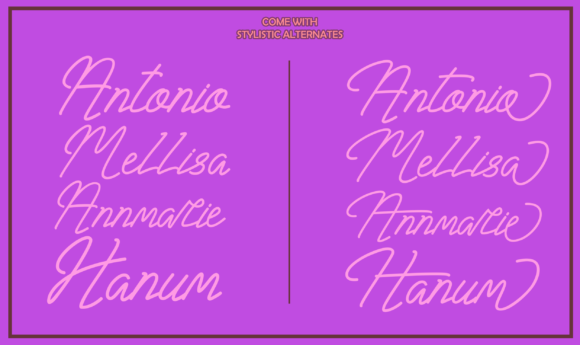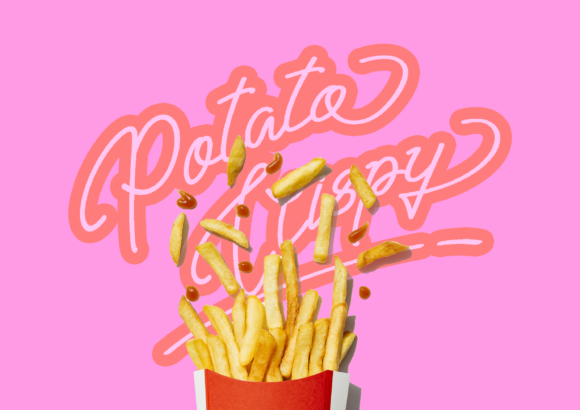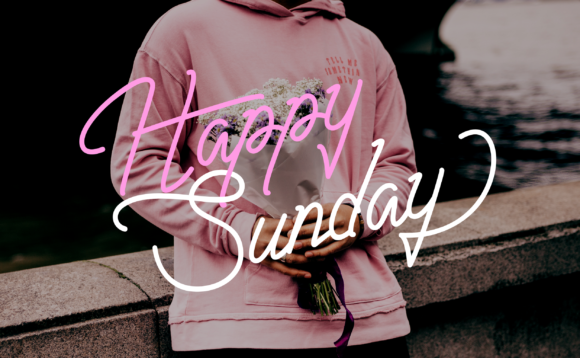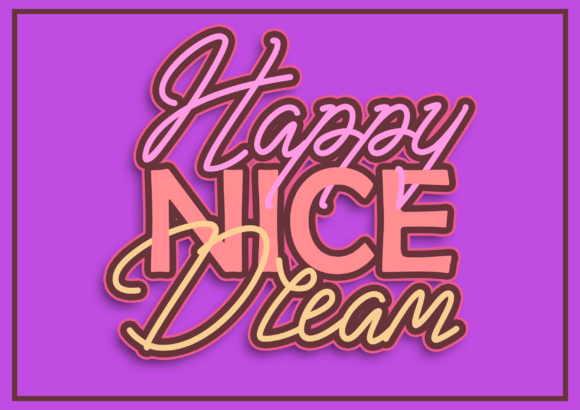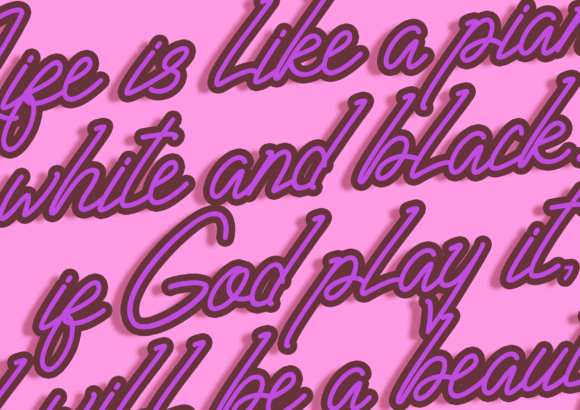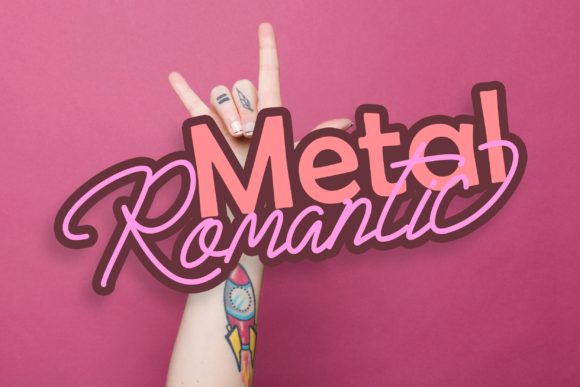
Discover the Timeless Elegance of Huntsel Script Font
Enter Huntsel Script Font, a beautiful and flowing handwritten font that’s perfect for adding a touch of personality to your designs. Its simple yet timeless style makes it incredibly versatile, fitting for a wide range of contexts, from wedding invitations to branding materials. With Huntsel Script Font, you’ll have the freedom to create spectacular designs that leave a lasting impression.
- Font Family: Huntsel Script Font is a unique, handwritten script font designed to add a touch of elegance and sophistication to any design.
- Character Set: The font includes a wide range of characters, including uppercase and lowercase letters, numbers, punctuation marks, and special characters.
- Unique Characteristics: The font features a unique, handwritten style with subtle flair and connections between letters, giving it a personal and elegant touch.
Huntsel Script Font Review
Overall, I found Huntsel Script Font to be a pleasant and elegant addition to any design project. ✨ It has a unique, handwritten feel that can add a touch of sophistication and whimsy to your work. The font is highly legible, making it suitable for a wide range of applications, from body text to headings.
- ✨ Beautifully crafted letterforms that evoke a sense of hand-drawn elegance.
- ✨ Highly legible, making it suitable for both digital and print projects.
- ✨ Wide range of language support, including Latin, Cyrillic, and Greek alphabets.
- ✨ Available in various weights and styles, allowing for a high degree of customization.
However, I did encounter a few limitations that may impact its usability in certain situations. ⚠️ The font’s irregular letter spacing can sometimes make it difficult to read, particularly in smaller text sizes. Additionally, the font’s lack of a true italic version may limit its use in certain contexts.
Overall, I would recommend Huntsel Script Font for designers looking to add a touch of elegance and sophistication to their work. While it may not be suitable for every project, its unique feel and high legibility make it a great choice for the right applications.
Huntsel Script is perfect for:
– Creating beautiful invitations, posters, and flyers.
– Designing custom logos, branding, and packaging.
– Adding a touch of elegance to quotes, poems, and inspirational messages.